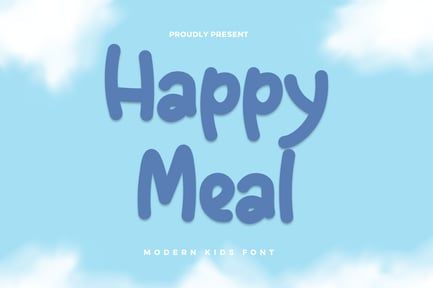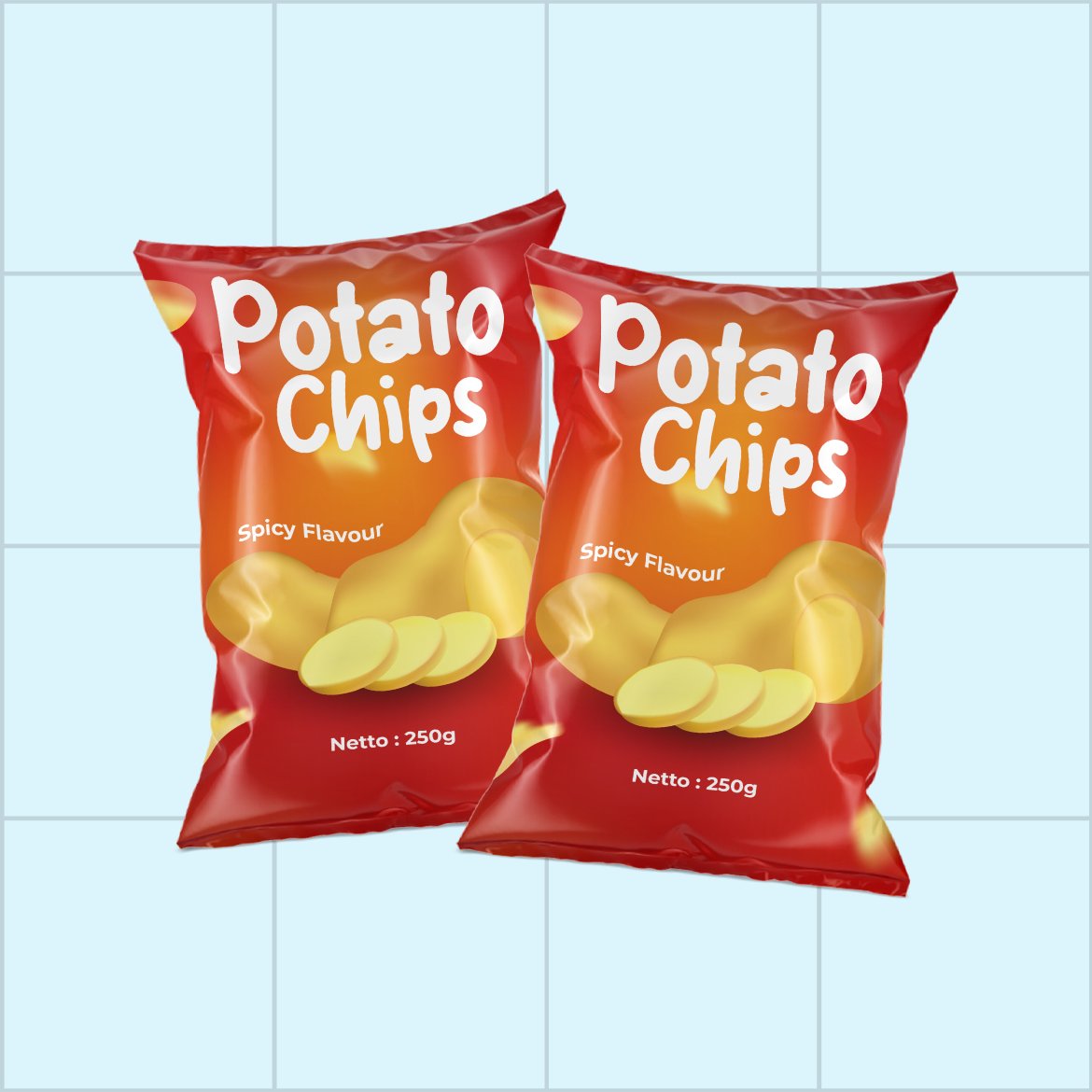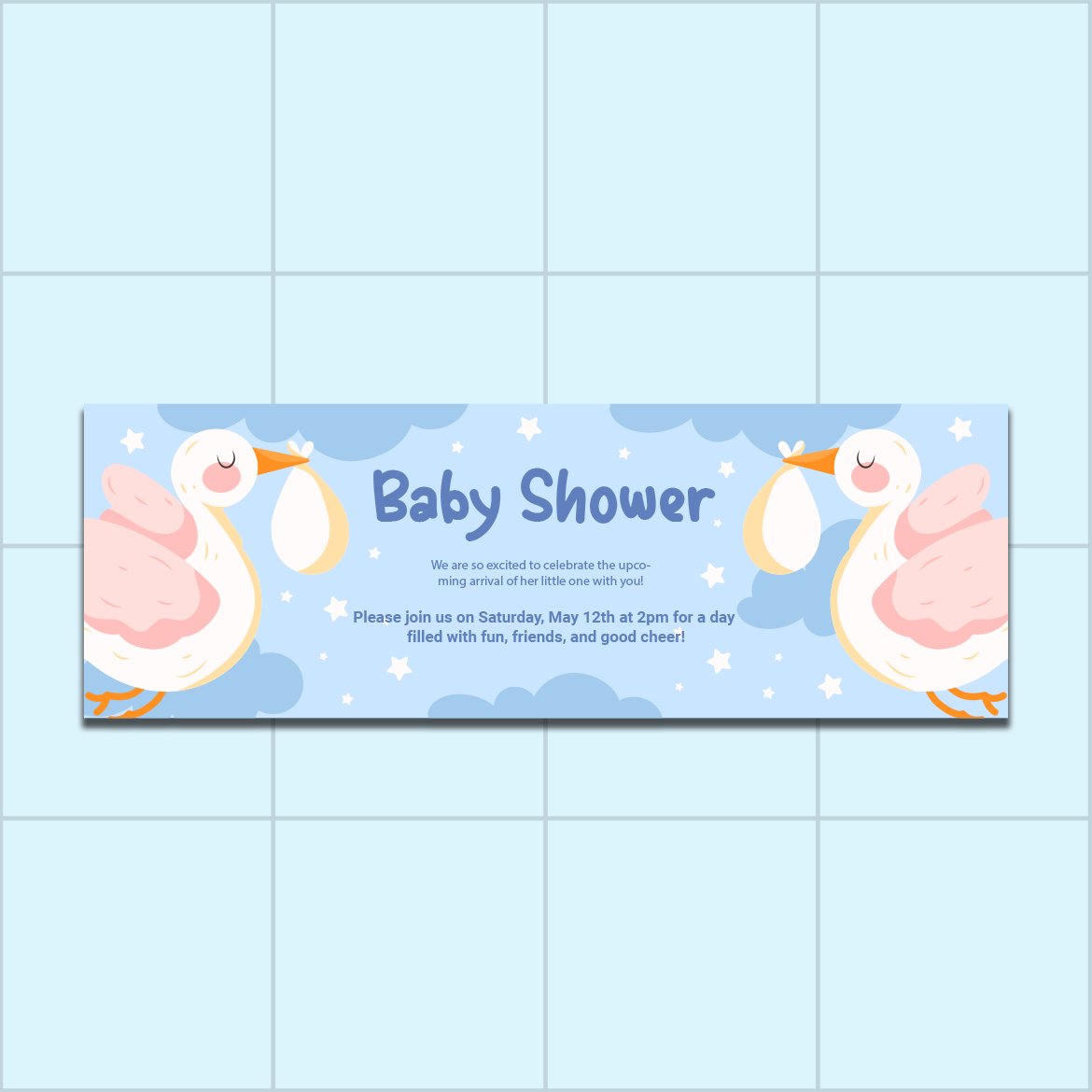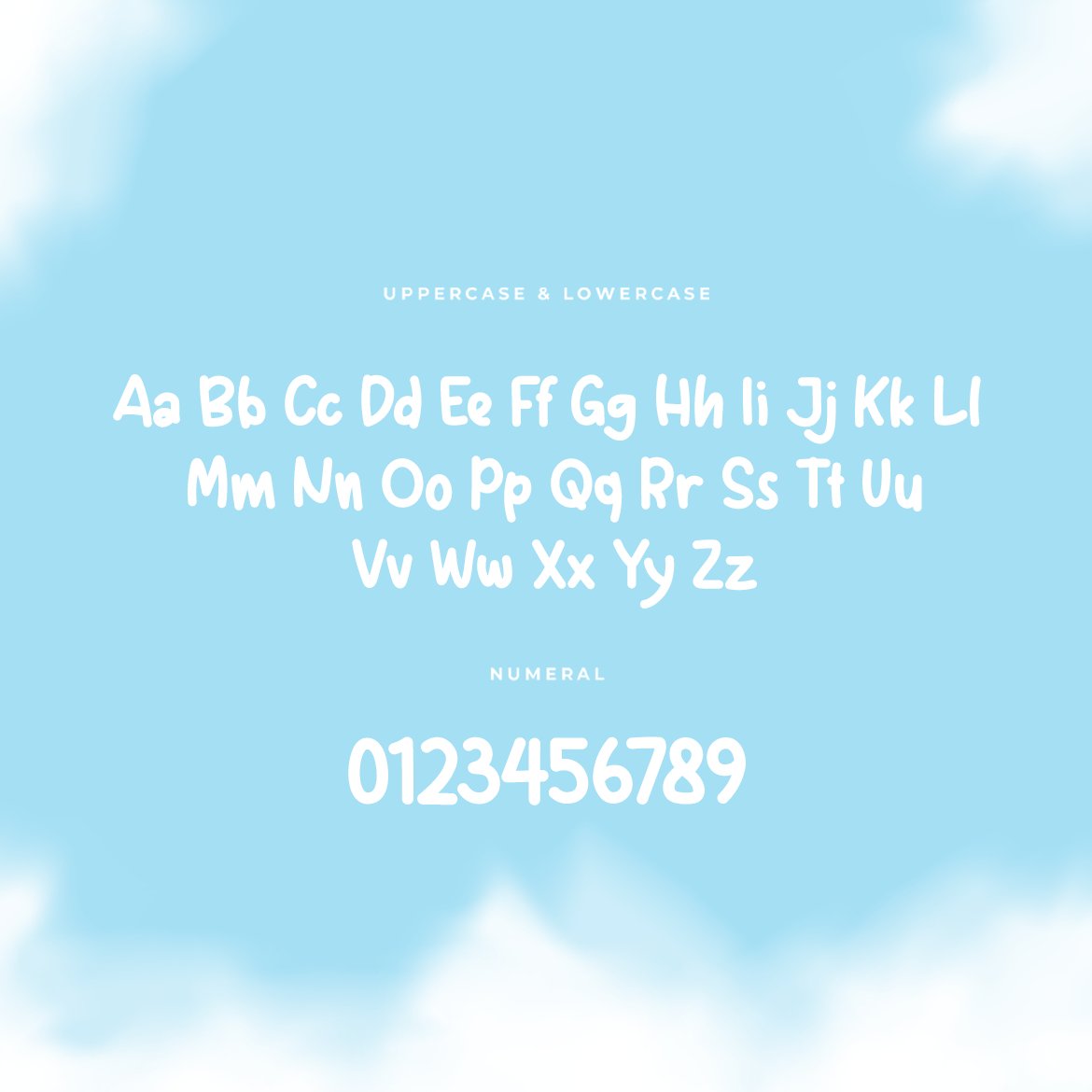
Happy Meal – Modern Kids Font
Ideal for children’s books, posters, educational materials, logos, and toy packaging, Happy Meal’s rounded and cheerful characters provide a friendly and engaging aesthetic. Each letter is meticulously designed to ensure readability and visual appeal, making your designs both effective and enchanting.